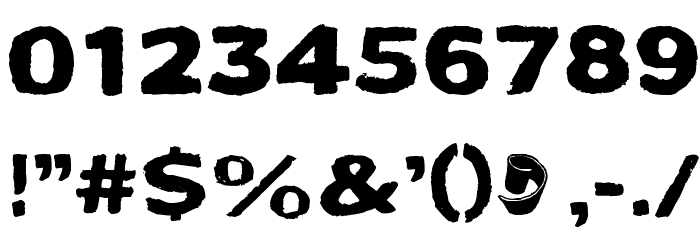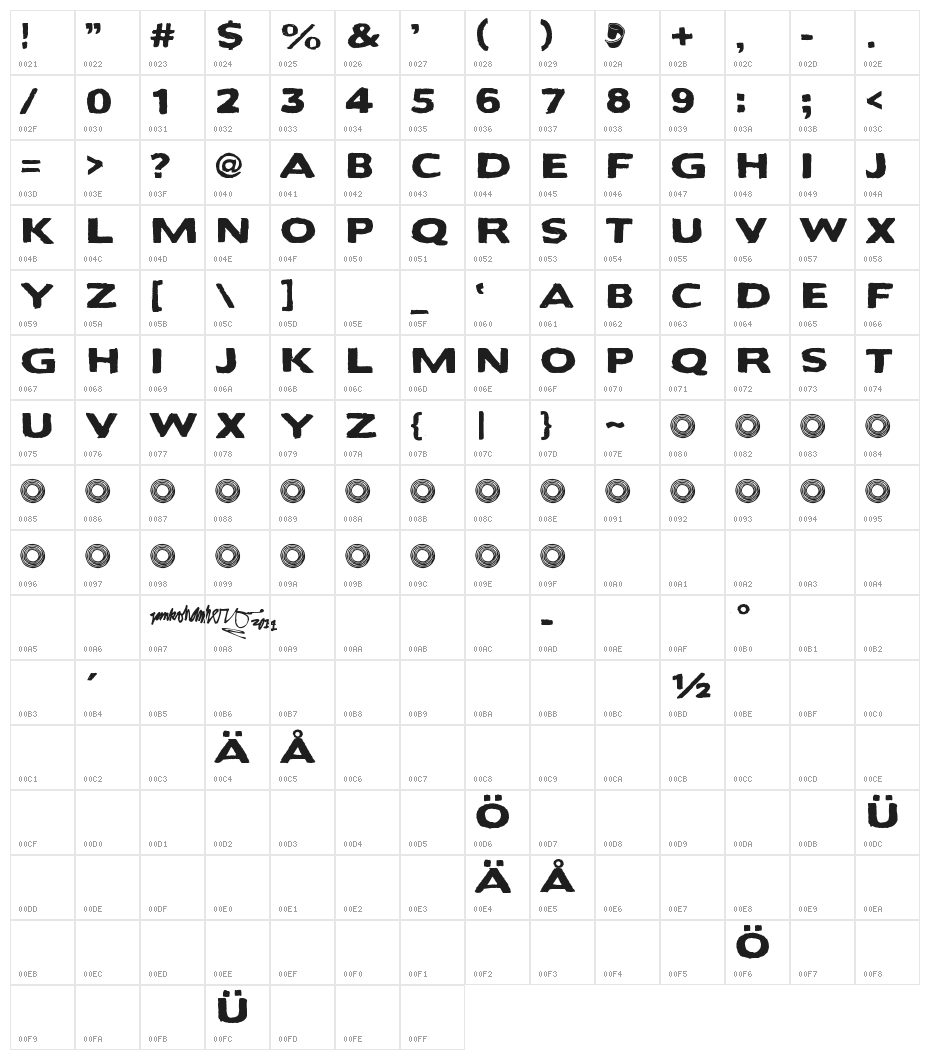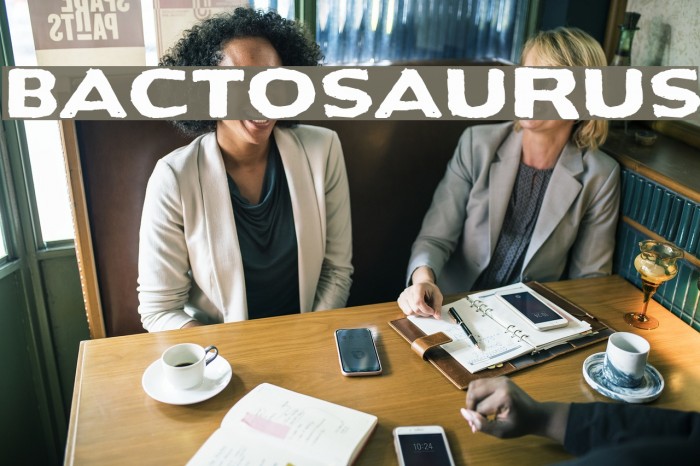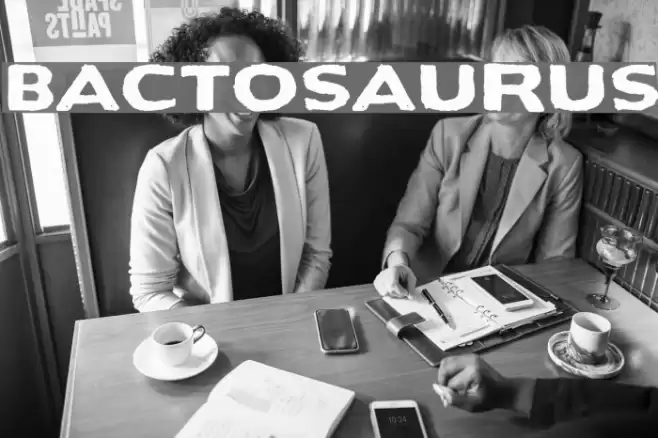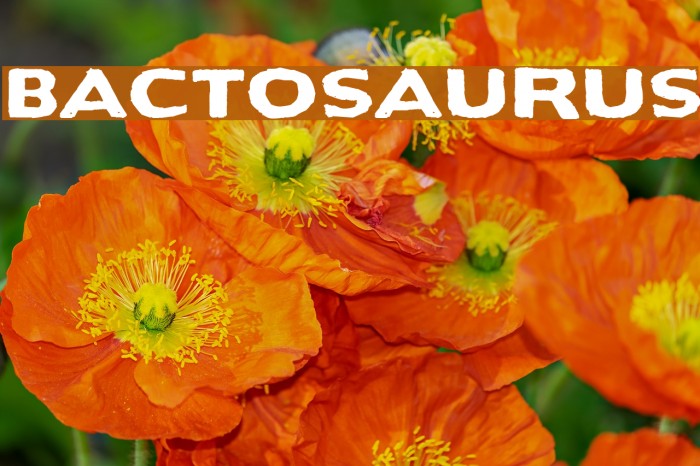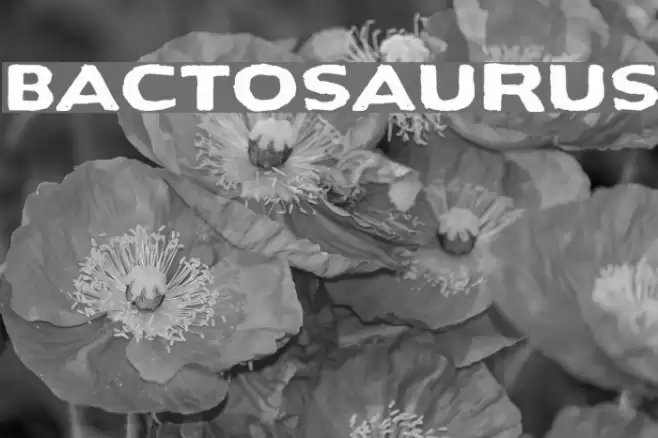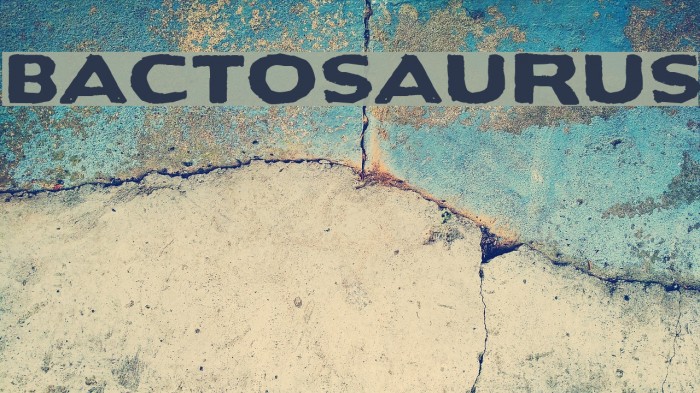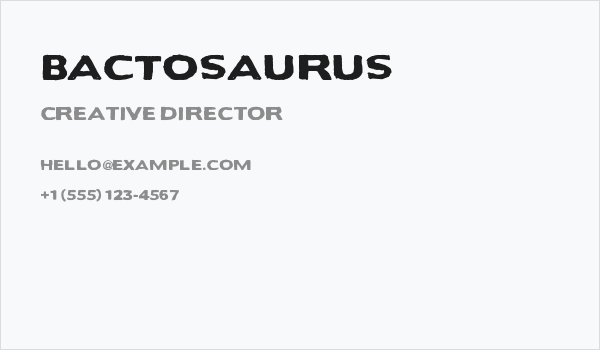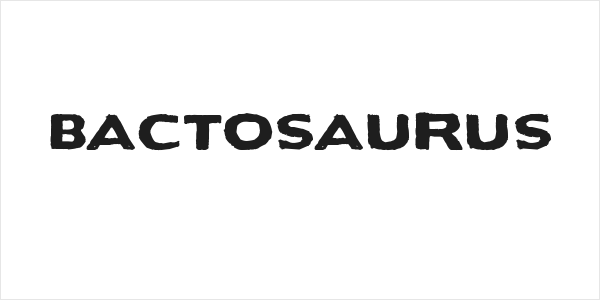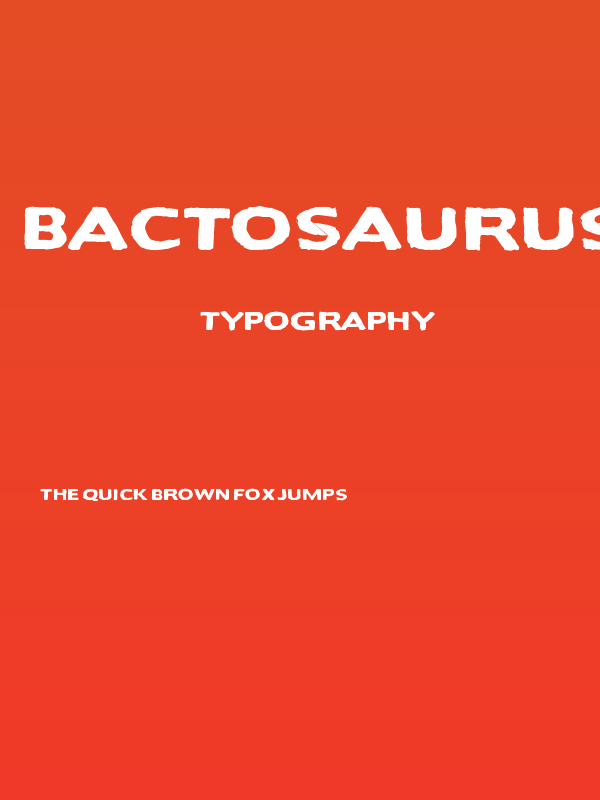
Bactosaurus Font
Bactosaurus Description
This font features a bold and rugged style with a hand-drawn appearance, giving it a unique and organic feel. The characters are thick and slightly irregular, with a distressed texture that adds a sense of authenticity and rawness. The uppercase and lowercase letters maintain a consistent weight, while the numbers and special characters follow the same design ethos, ensuring a cohesive look across all elements. This font's distinctive style makes it stand out, offering a bold statement in any design project.
| Proposed Projects | Ideal for projects that require a bold, organic look such as posters, album covers, branding for artisanal products, or any design needing a raw, authentic feel. |